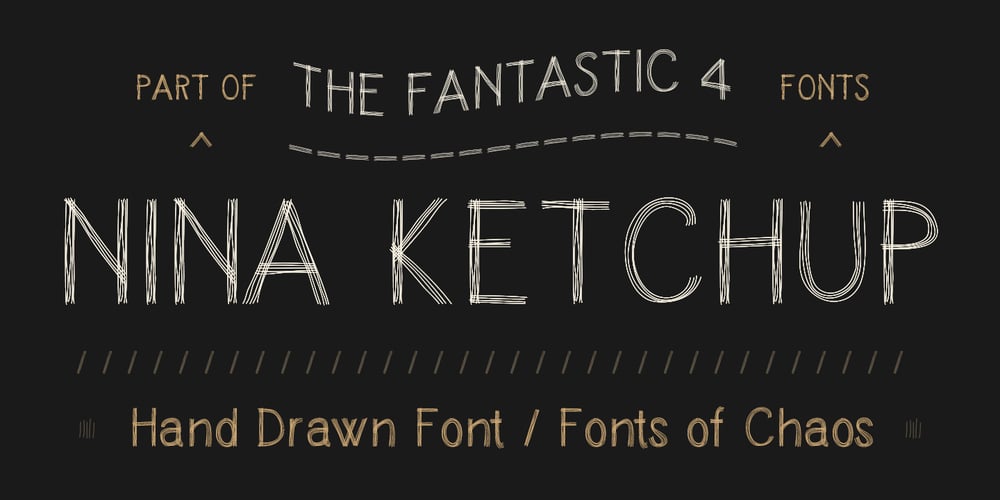
Nina Ketchup Font Family was designed by David Alexander Slaager and published by Fonts of Chaos. Nina Ketchup contains 1 styles and family package options. Nina Ketchup is a hand drawn font made with lines. Each letters have his own style. Work perfectly with wood background or hipster logo types. Natural flow for a fantastic effect.